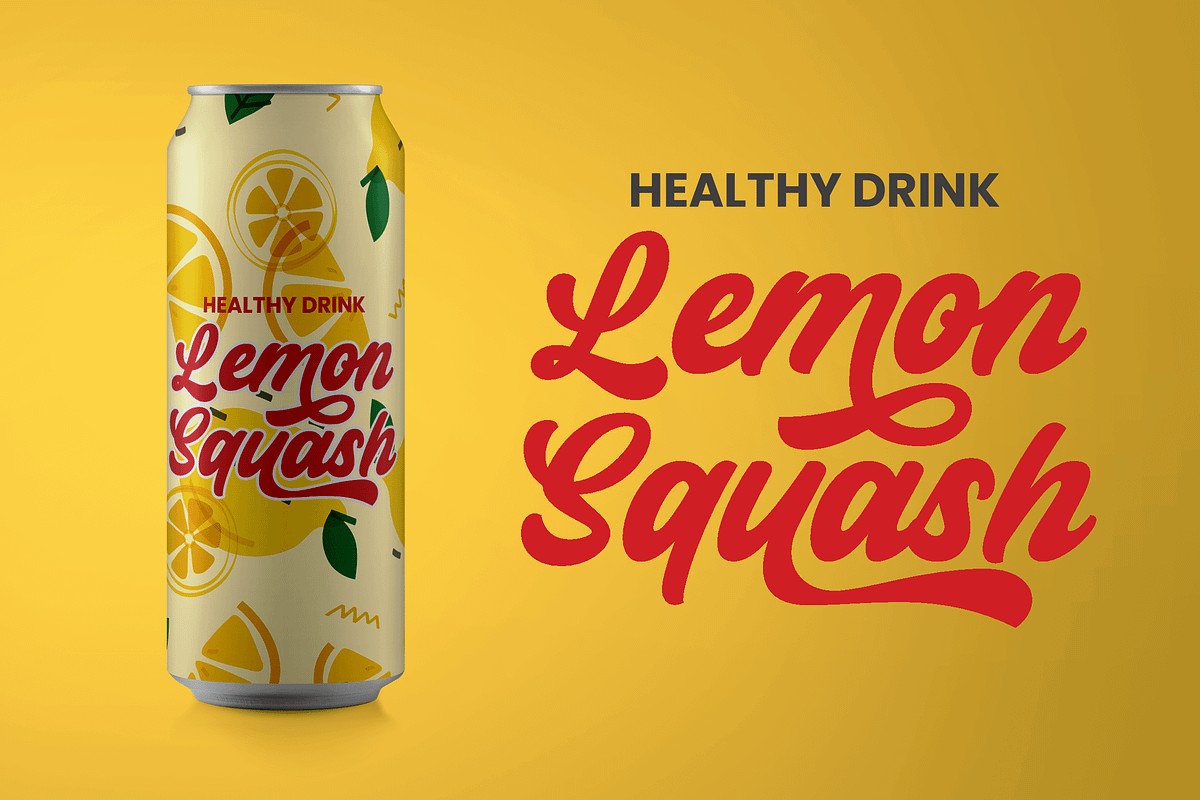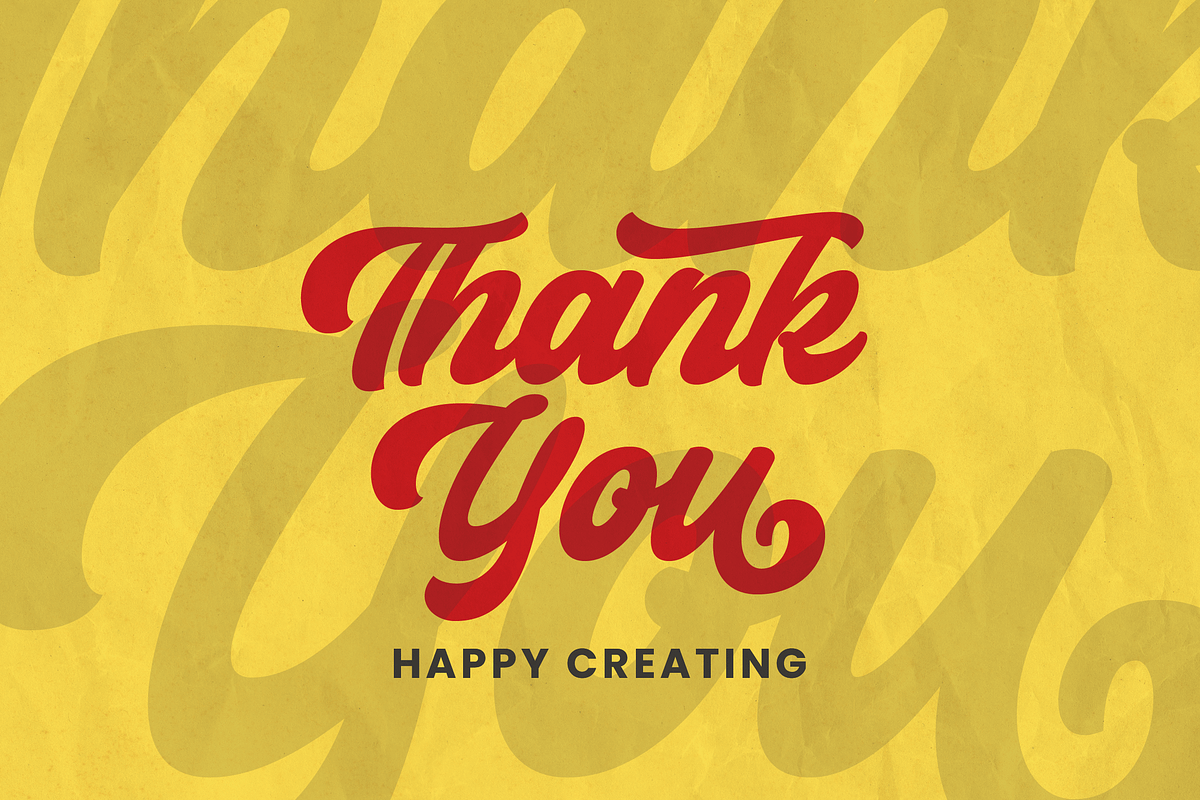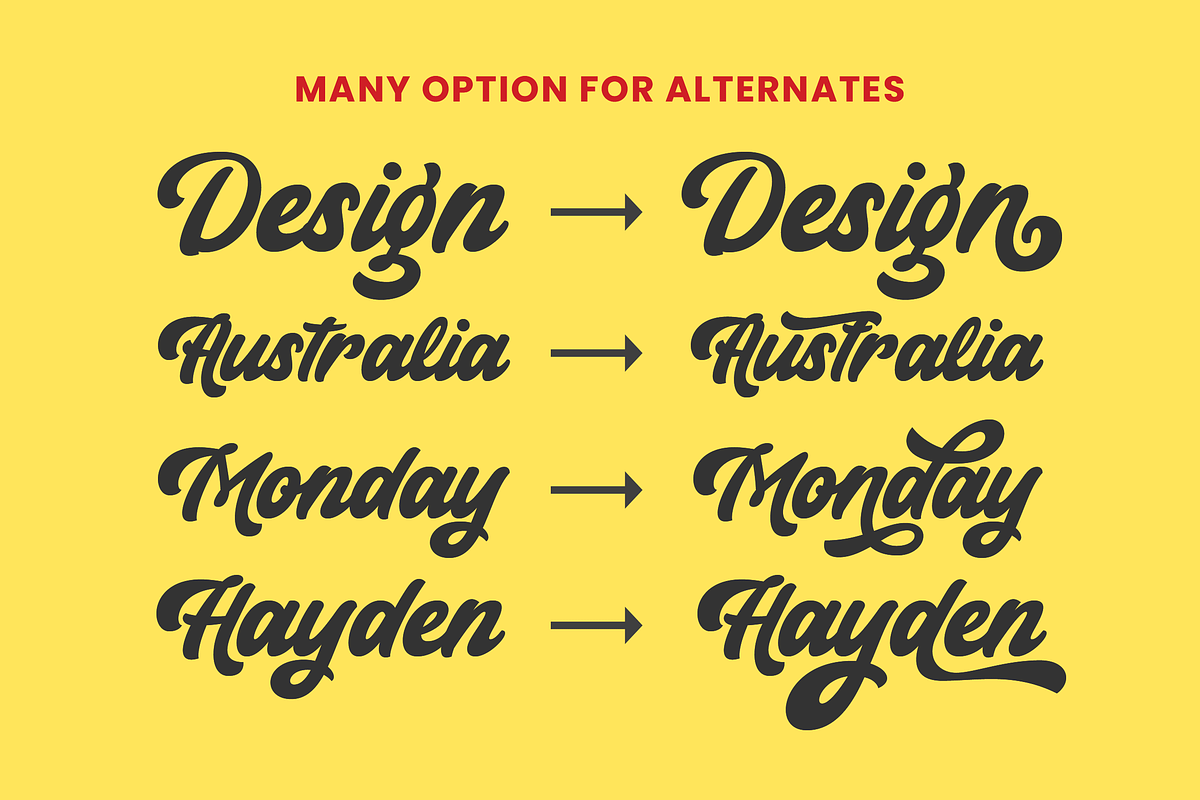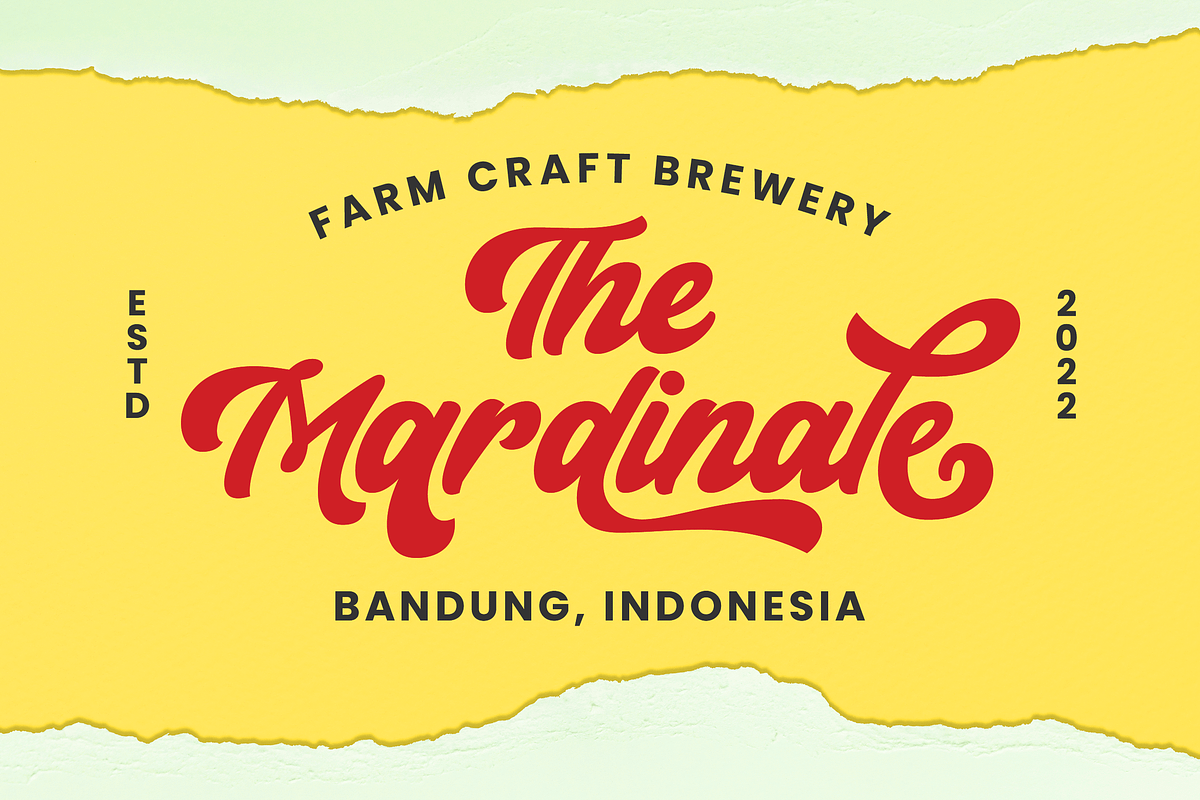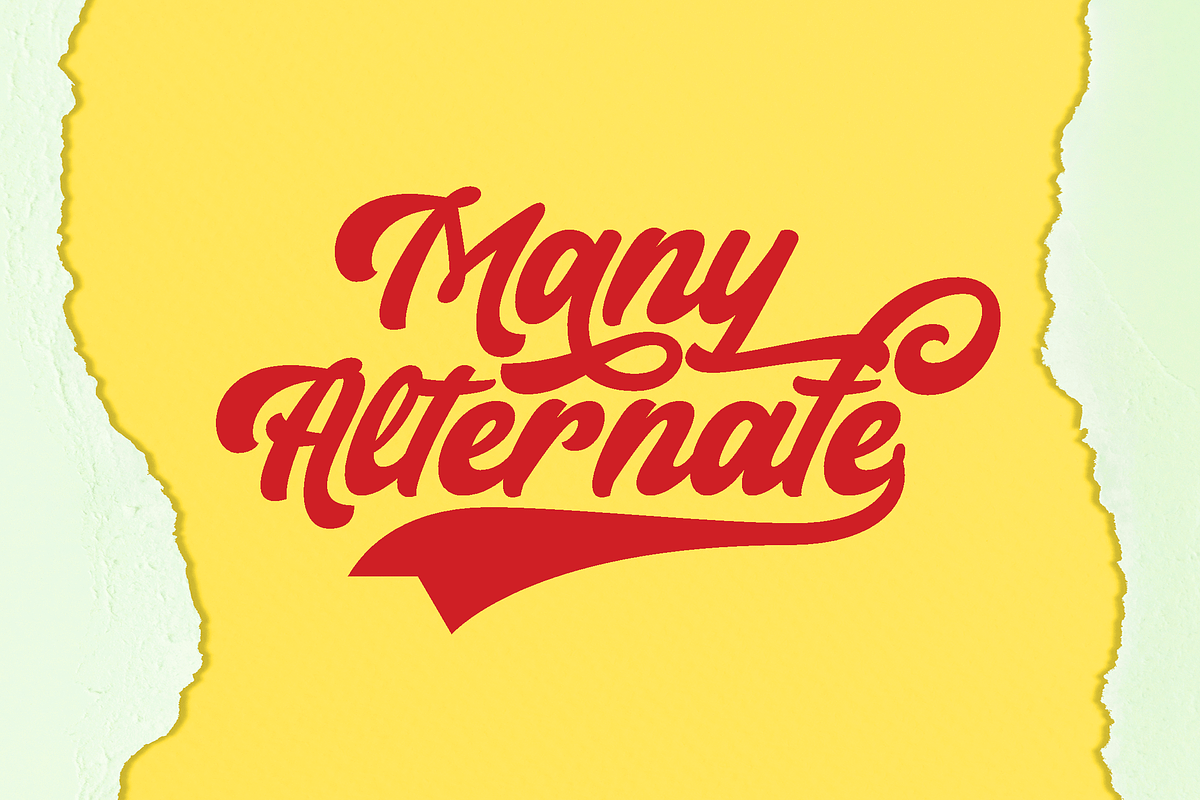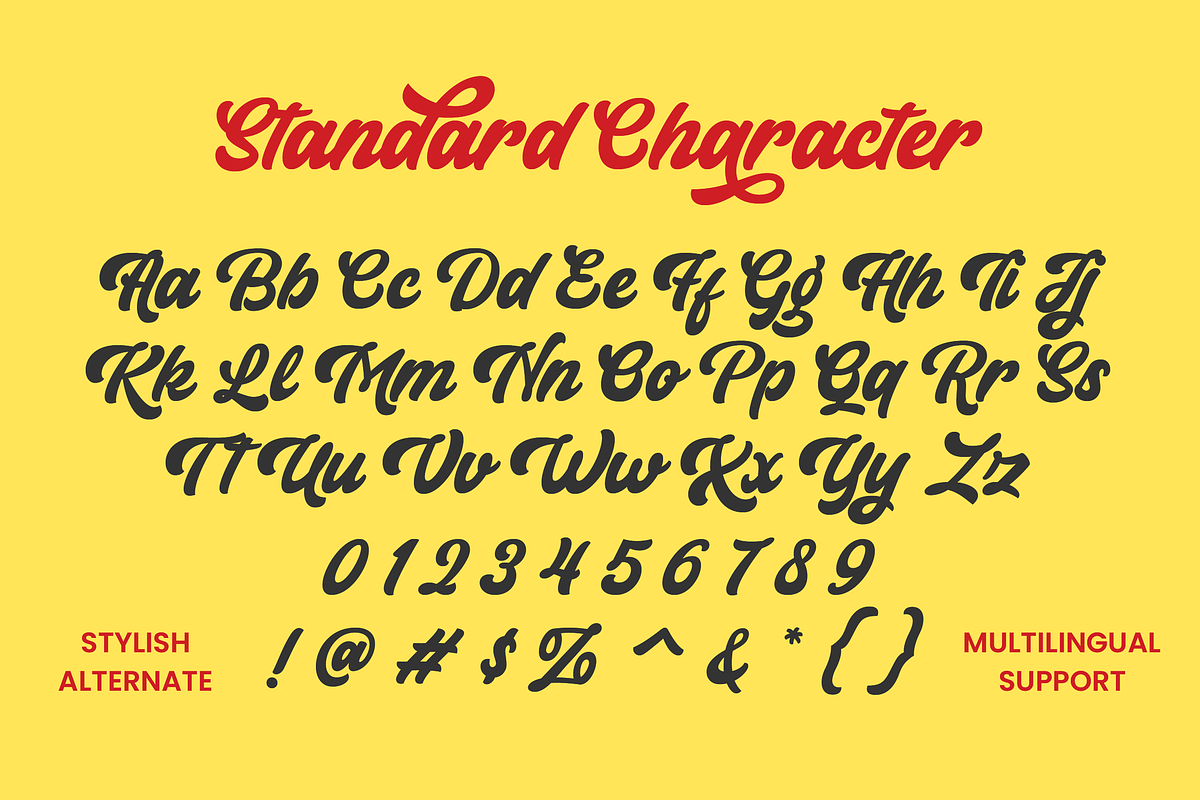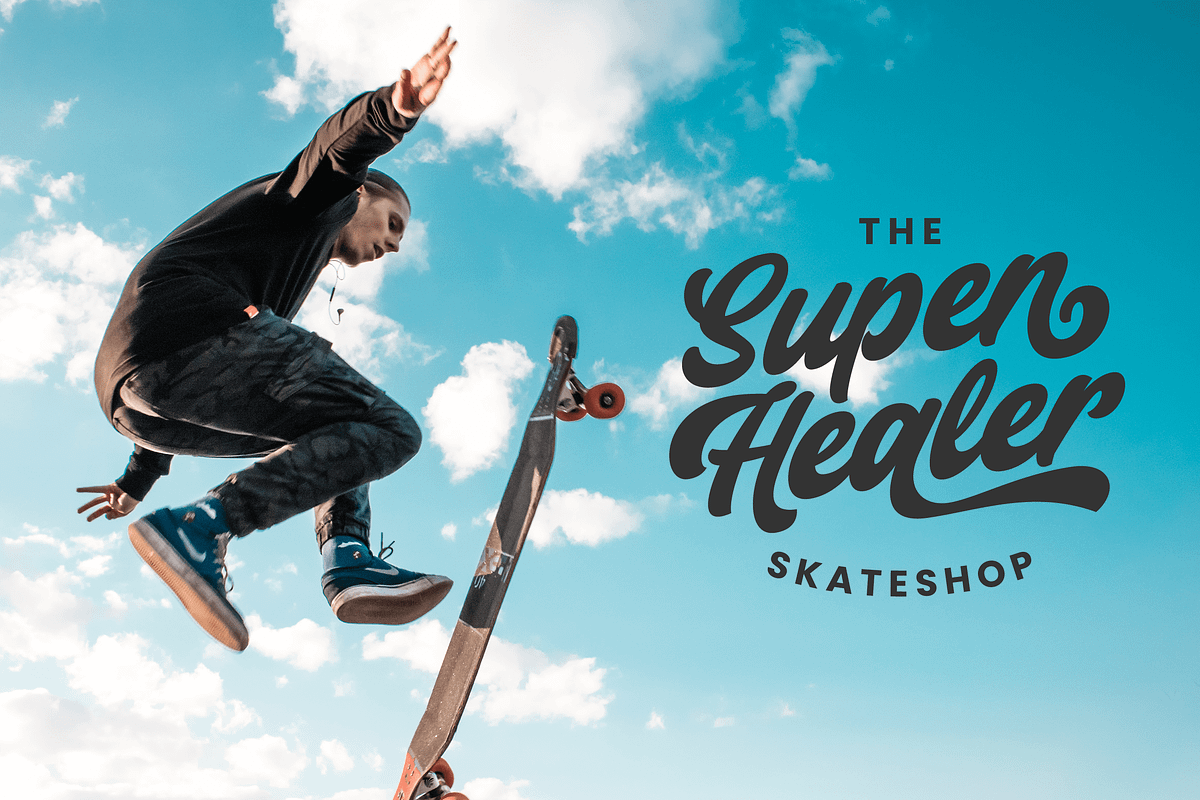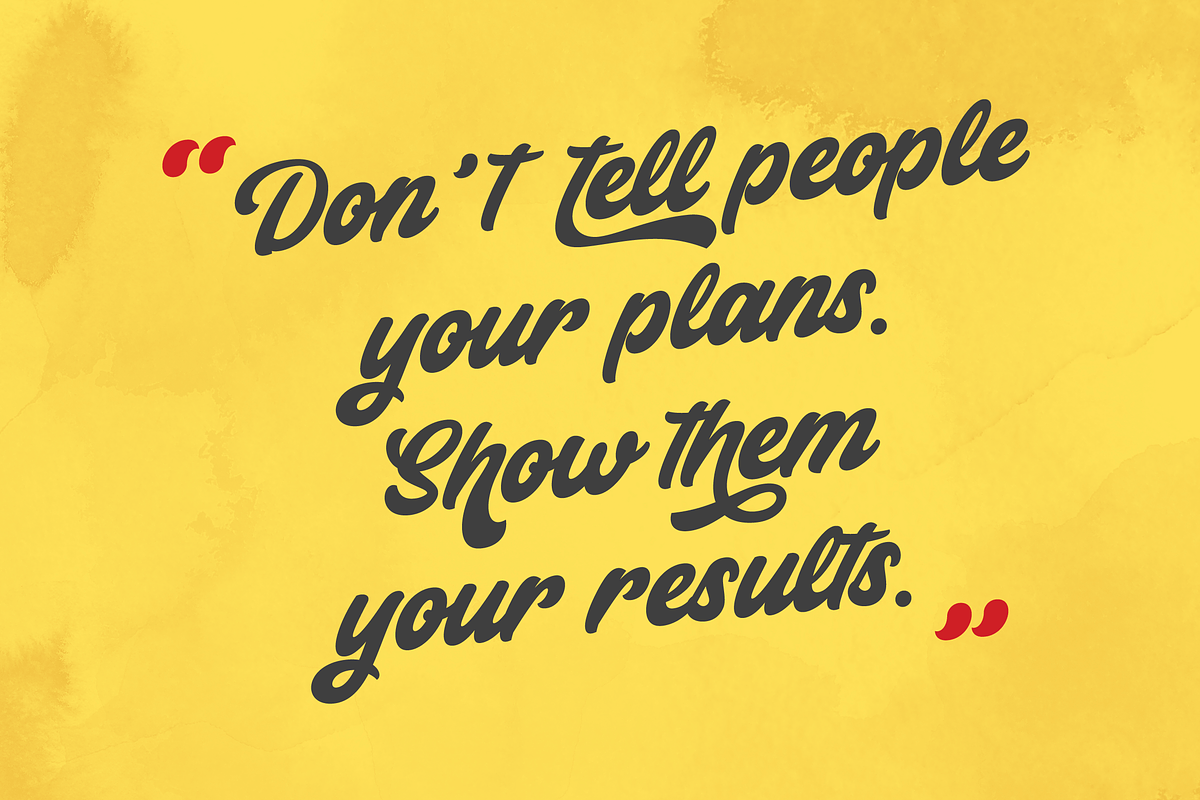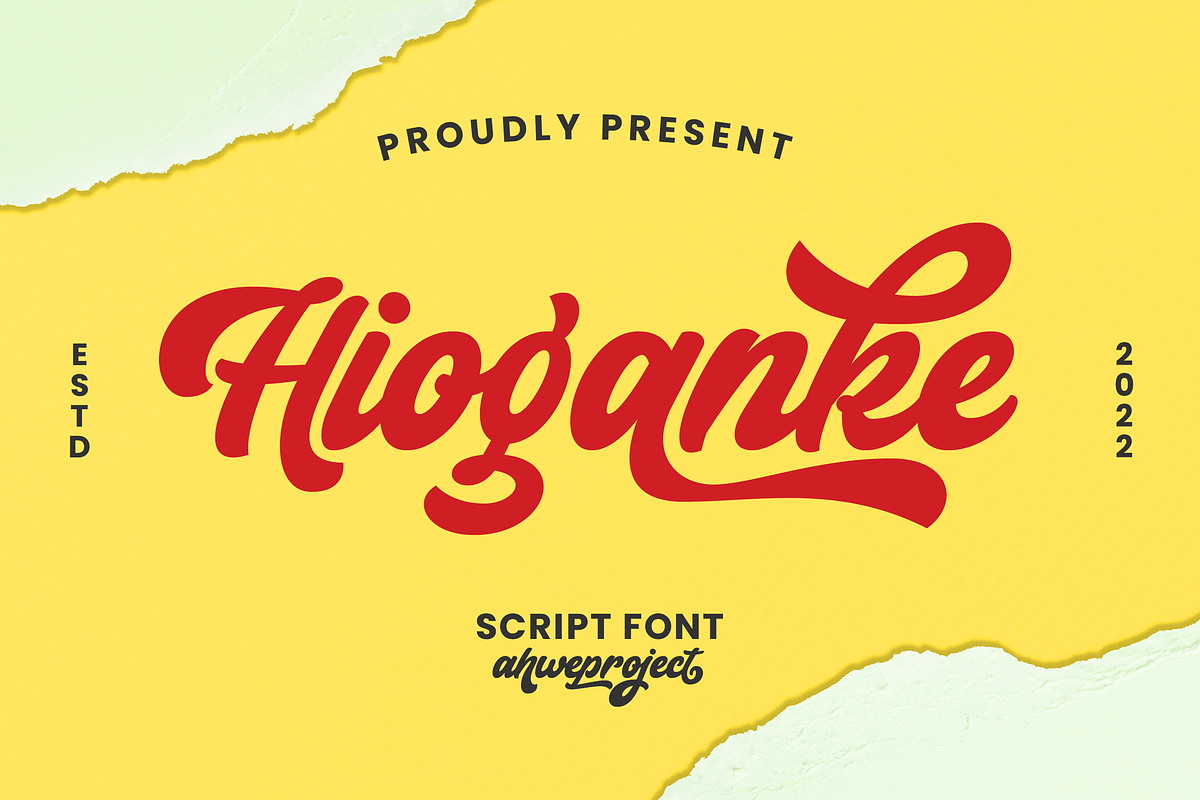
Hioganke
Hioganke is An Urban Script Font. This font was created to help you design logotypes with urban style for your brand or your clients, and also you can use it for designing all of the graphic stuff such as badges, signs, Esport, headlines, urban design, T-shirt/apparel, Poster, etc. This font is PUA encoded which means you can access all of the amazing glyphs and ligatures with ease!